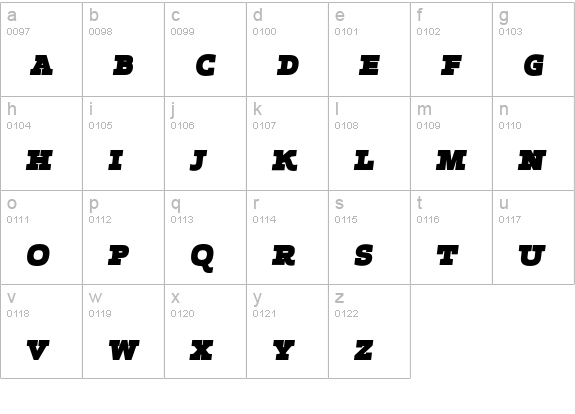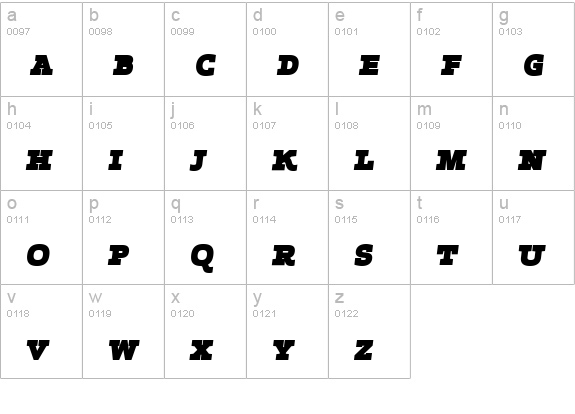
ApexSerif-ExtraBoldItalicCaps is a striking and elegant typeface that exudes sophistication and modernity. Its bold and italicized design demands attention, making it perfect for headlines, logos, and branding materials. The unique caps style adds a touch of luxury to any project, elevating the overall look and feel. The ApexSerif-ExtraBoldItalicCaps font is not only visually appealing but also versatile, suitable for a wide range of design applications. Whether you're working on editorial layouts, packaging design, or advertising campaigns, this font will make a bold statement. Best of all, ApexSerif-ExtraBoldItalicCaps is available for free download at FontsMarket.com. You can easily access this high-quality font and incorporate it into your projects without any cost. Don't miss out on the opportunity to enhance your designs with the stunning ApexSerif-ExtraBoldItalicCaps font today.